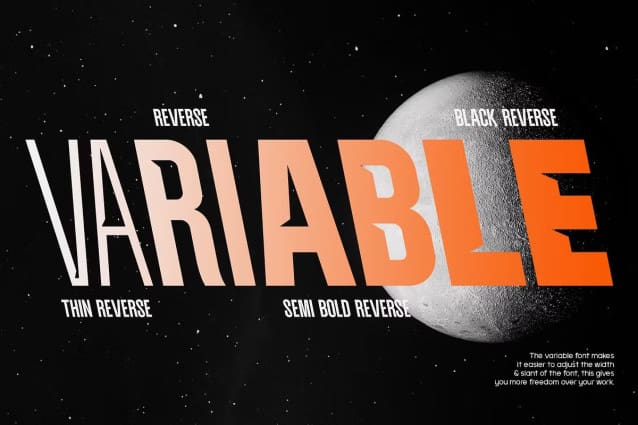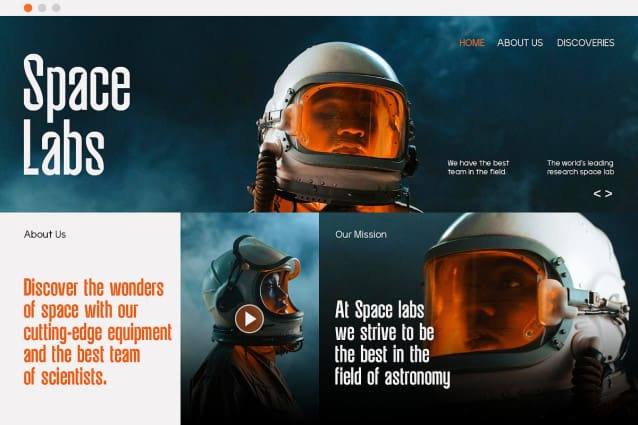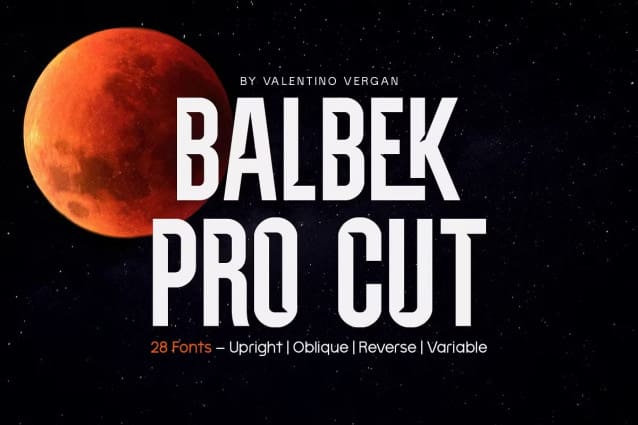
Balbek Pro Cut Font Family is a modern sans serif, it was designed with neutral aesthetic letters that create a natural condensed look. BalbekPro Cut has an improved design, better legibility and more characters than the original Balbek Cut font. The idea behind BalbekPro Cut was to create an all-purpose display font that would look great in print, posters, graphics and logos.
Balbek Pro Cut is an ideal font for designers and agencies that are looking to create beautiful layouts and designs. BalbekPro Cut comes in 9 weights, each weight has an oblique and reverse version. The easy to use variable version of BalbekPro Cut, gives you the flexibility to manually adjust the fonts weight and slant. It is equipped with a set of powerful OpenType features, this allows you to insert ligatures or quickly change between alternate letters. With its great multilingual support, which includes extended Latin and Cyrillic characters, Balbek Pro Cut can produce a large number of different languages.